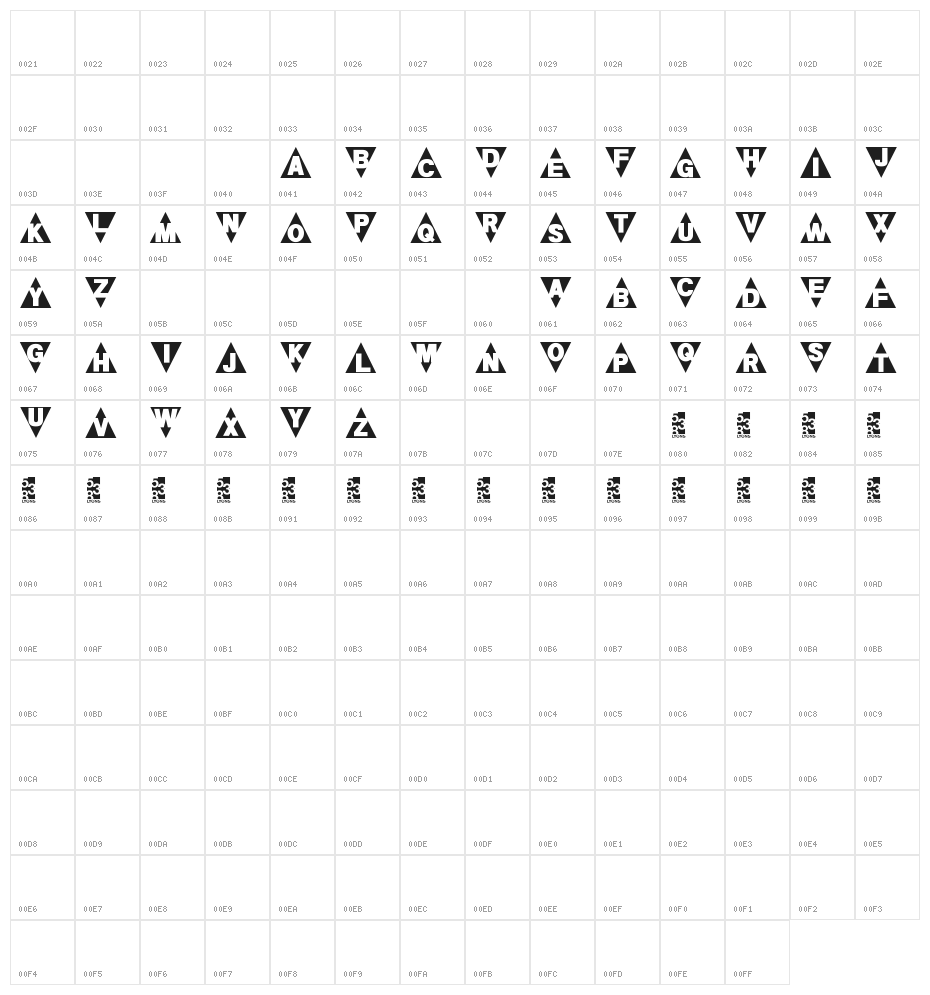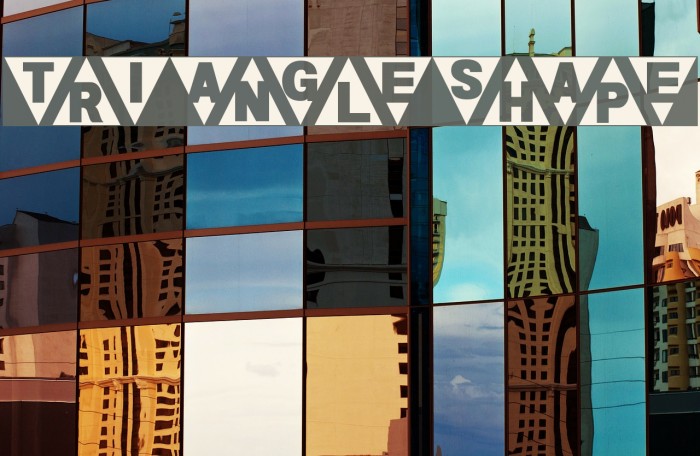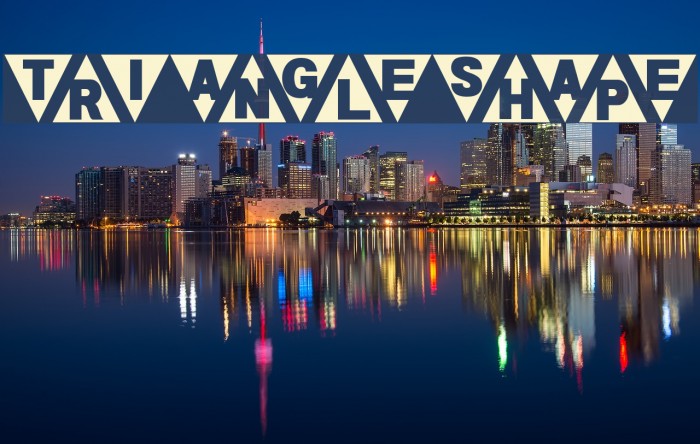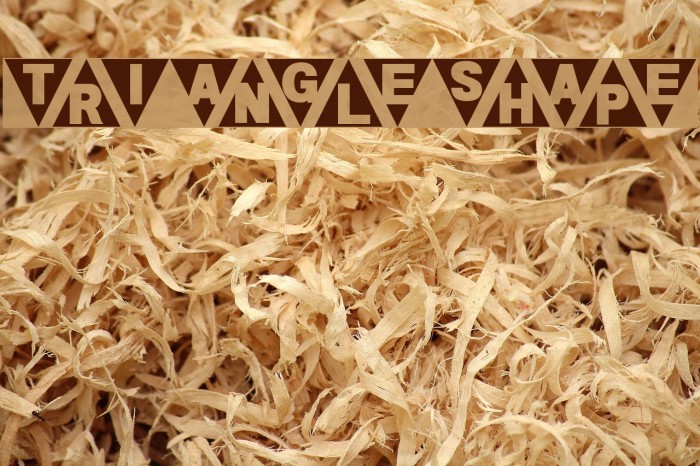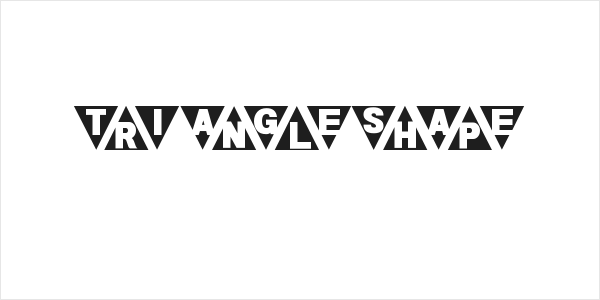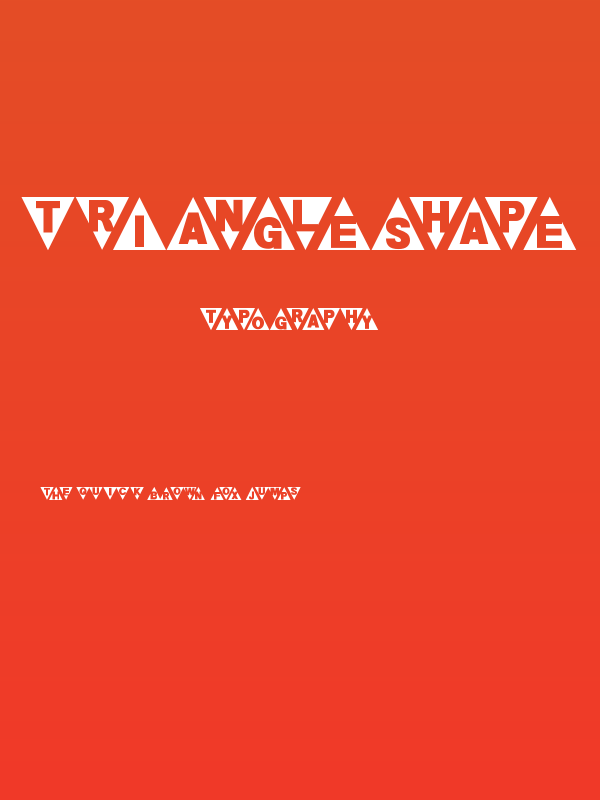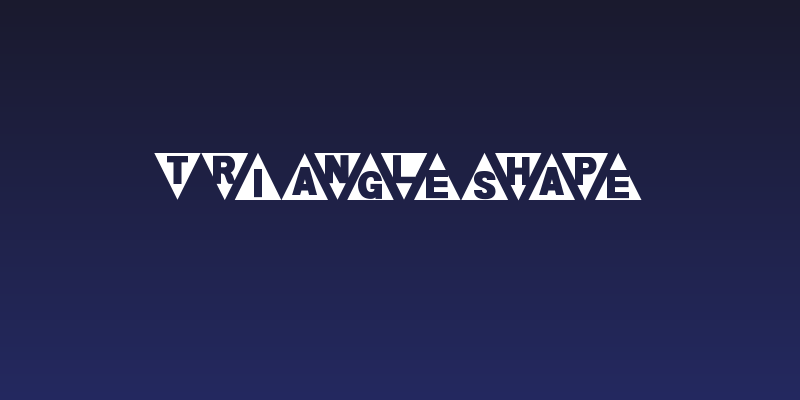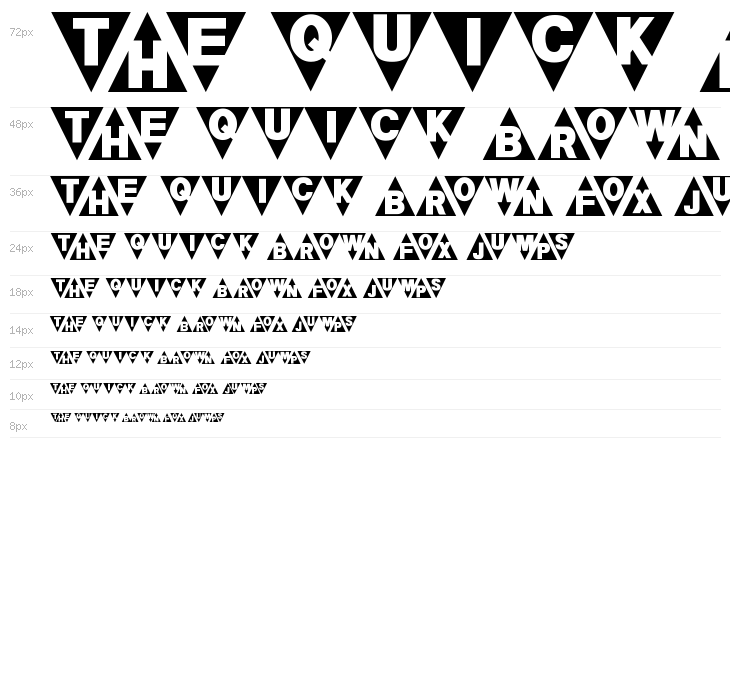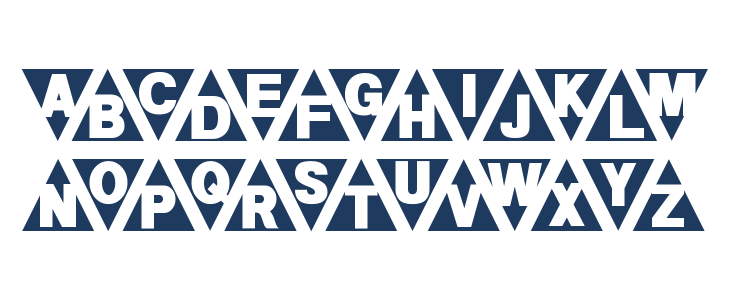
Triangleshape Font
Triangleshape Description
This unique font features bold, uppercase letters enclosed within black triangles, creating a striking visual impact. Each letter is centered within its triangular frame, with the white letterforms contrasting sharply against the dark background. The geometric design gives it a modern and edgy feel, making it ideal for attention-grabbing headlines or logos. The font's distinct style is both playful and assertive, with each character maintaining a consistent size and shape within the triangles. This design choice emphasizes uniformity while allowing the letters to stand out individually.